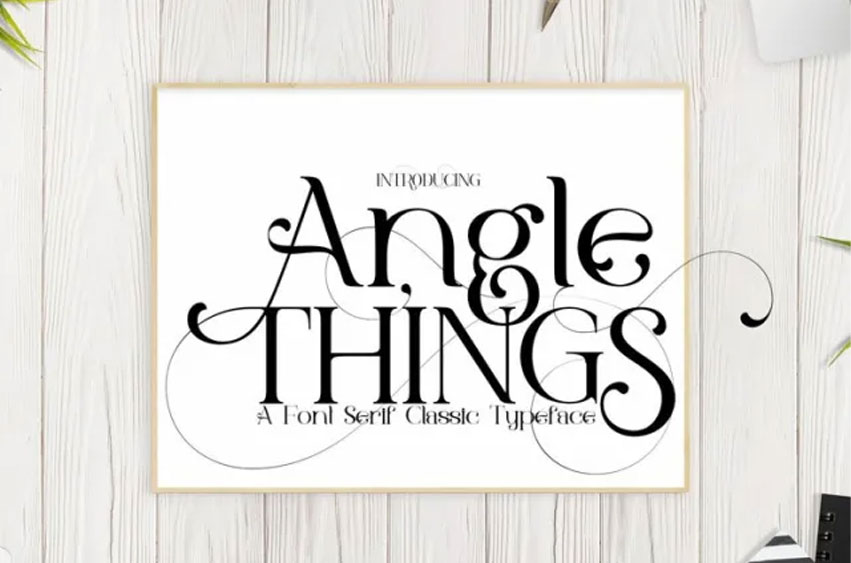
Angle Things Font
Angle Things Font is a very beautiful and elegant serif font, very suitable for professional projects, there are several alternates that you can use and combine, supported by the PUA code you can easily access everything with a glyph, to get a charming touch, very suitable for titles movies, magazines, books, invitation prints, and much more, this design font will give you what you want for your designs thanks very much.
Perfectly crafted to meet all your design needs.